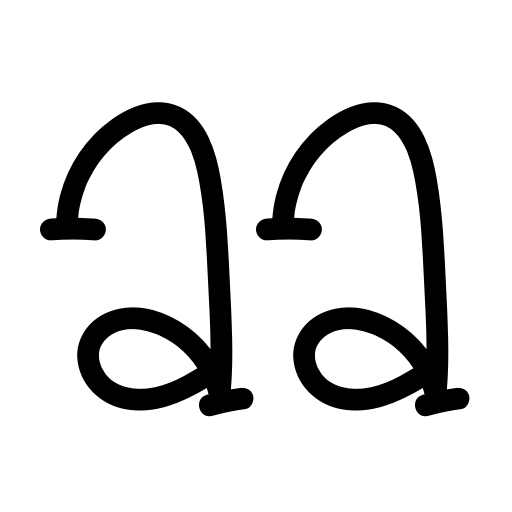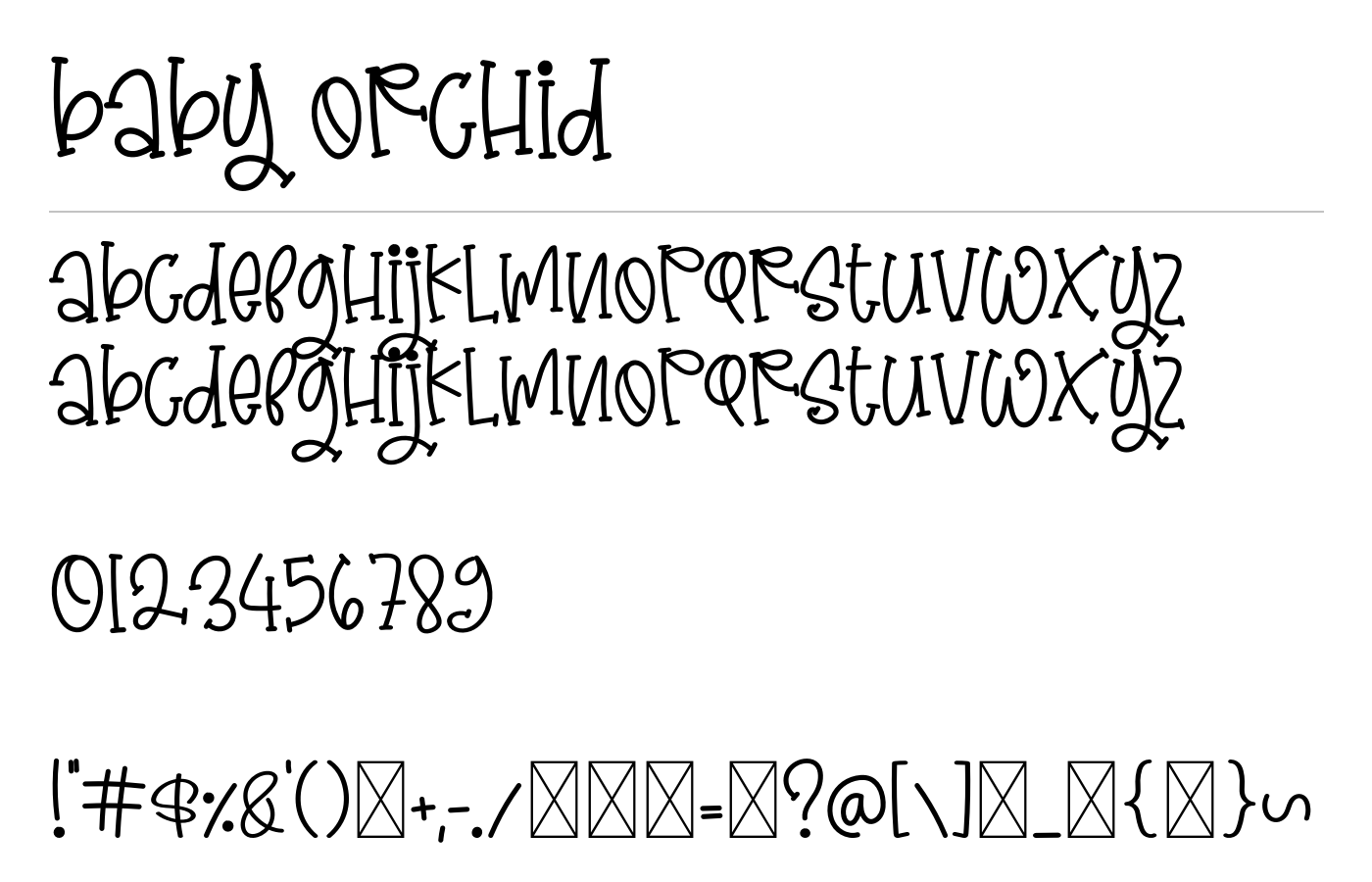
Baby Orchid is a playful and whimsical sans serif font with a hand-drawn, casual feel. Its tall, narrow letterforms feature lively curves and quirky details, making it perfect for creative, fun, or child-focused designs. This font works well in headlines, invitations, and branding that aims to convey friendliness and charm.
Baby Orchid Font
About Baby Orchid Font
| Font family | Baby Orchid Font |
| Designer | Creative Zone |